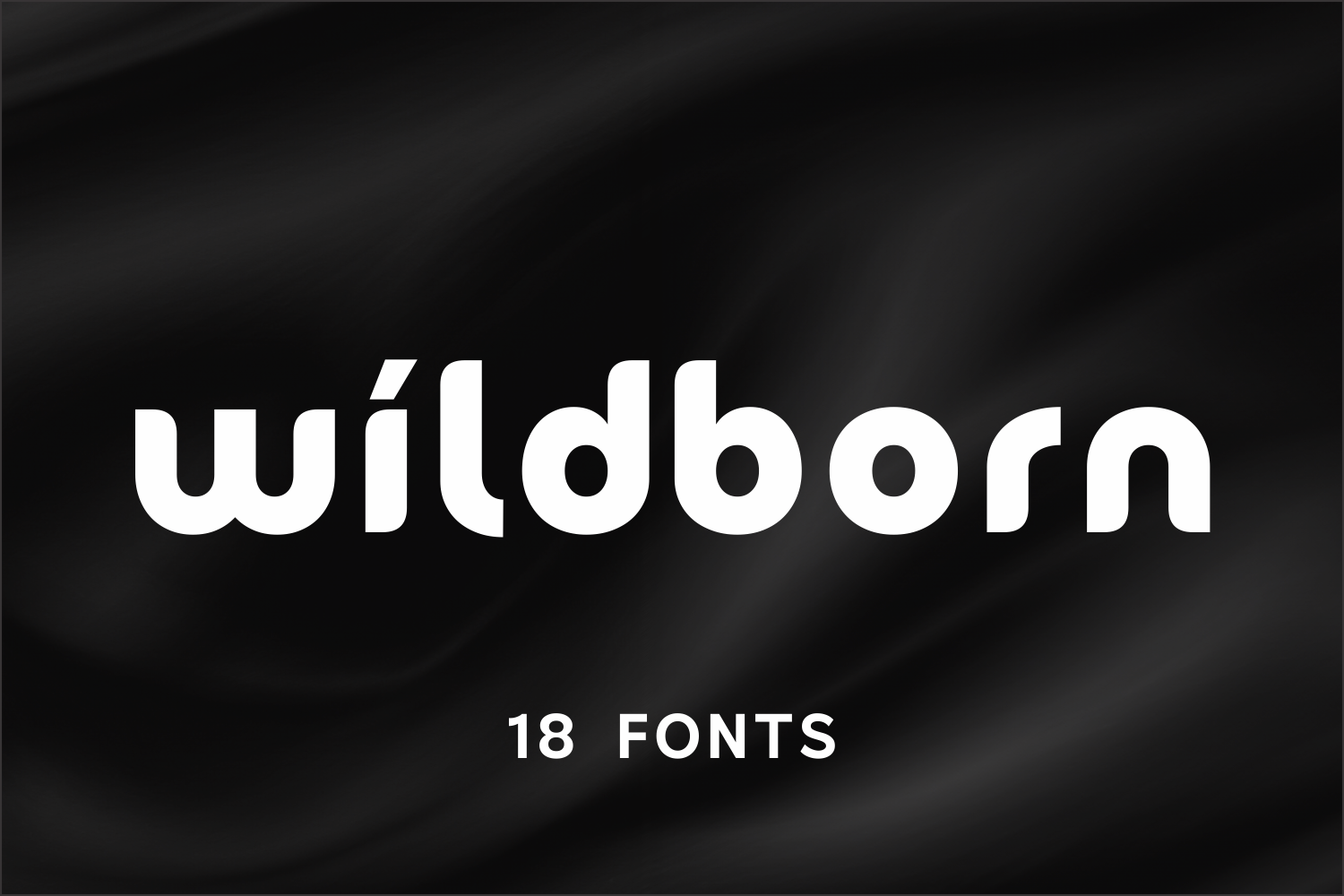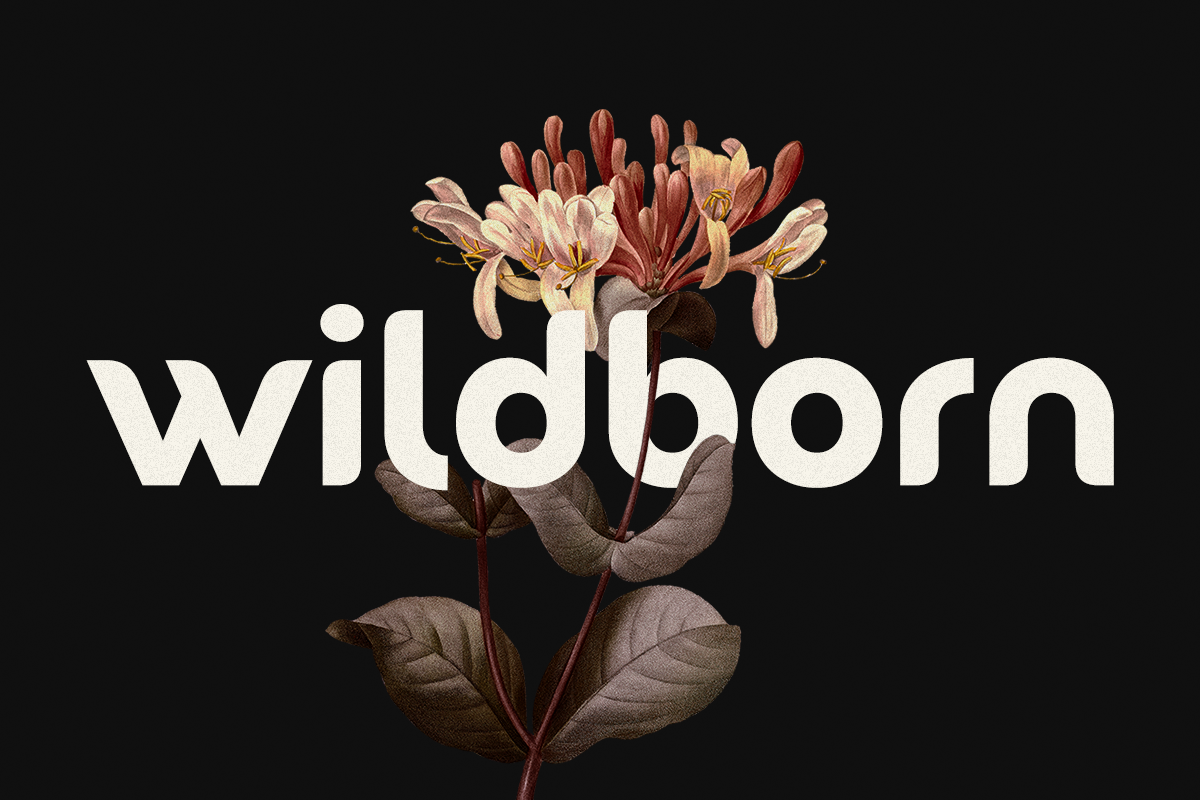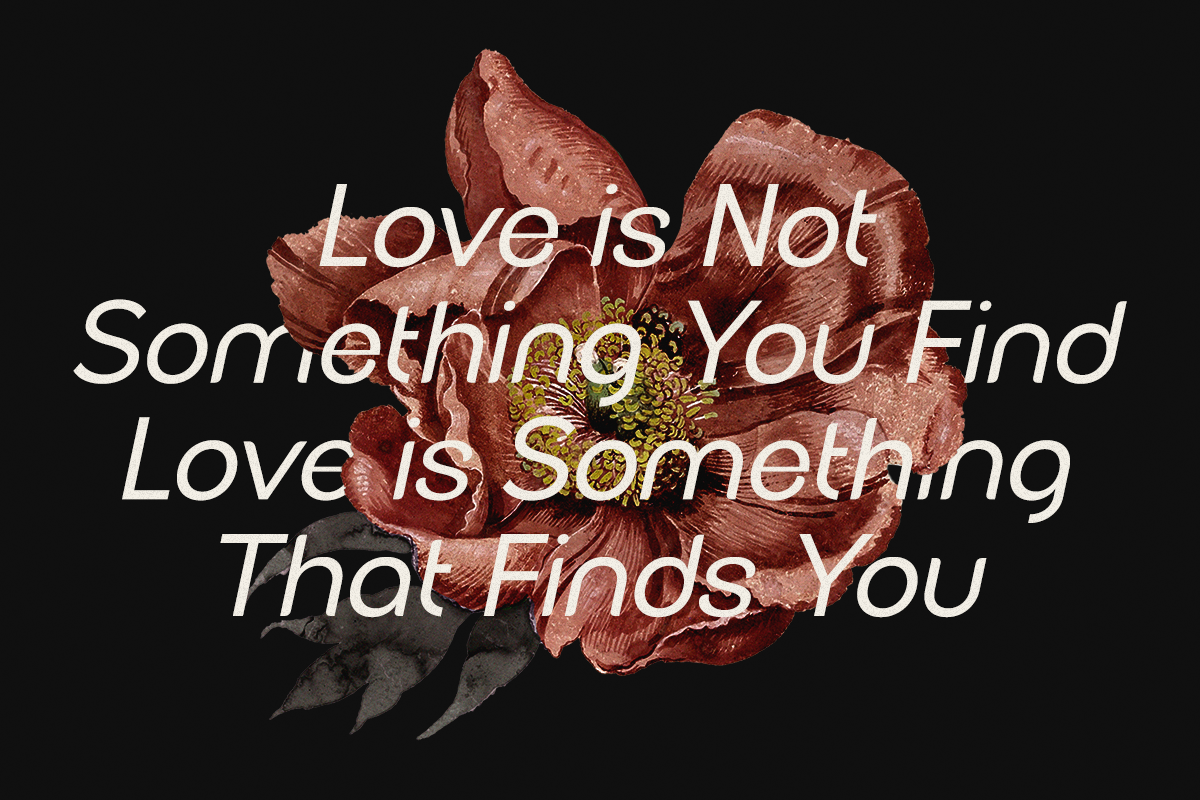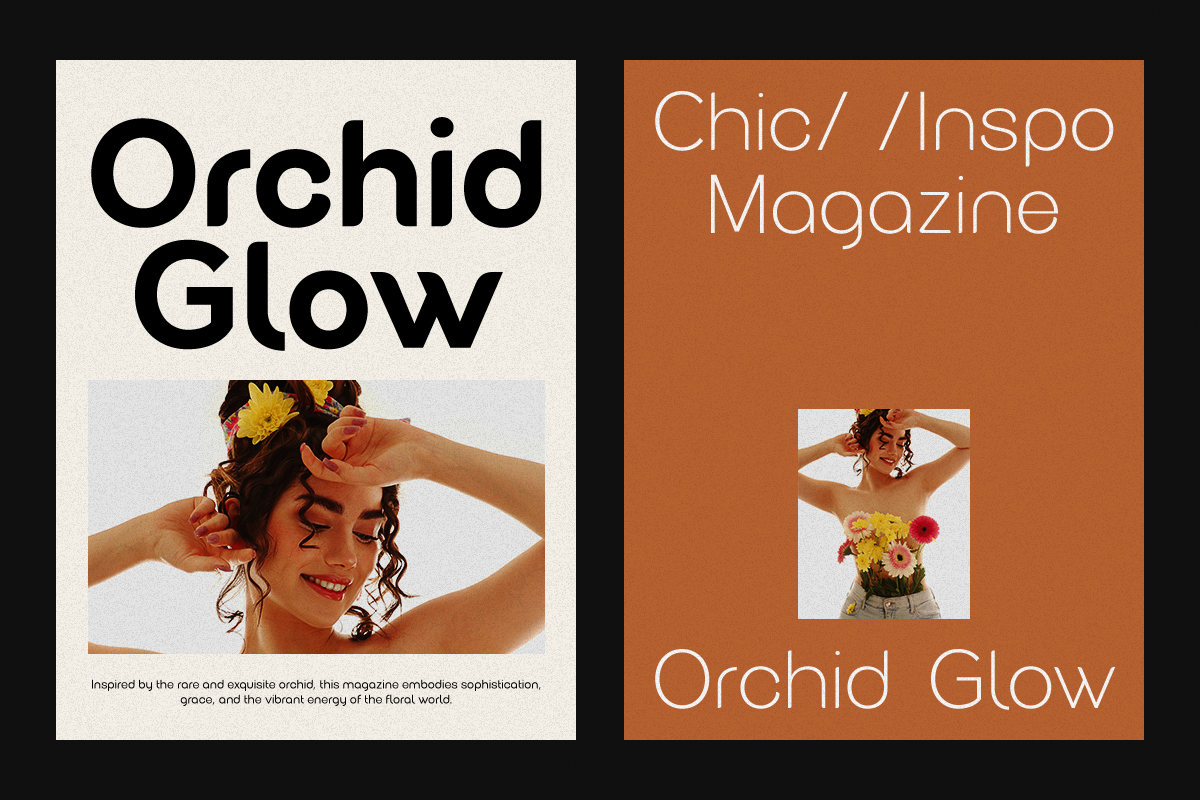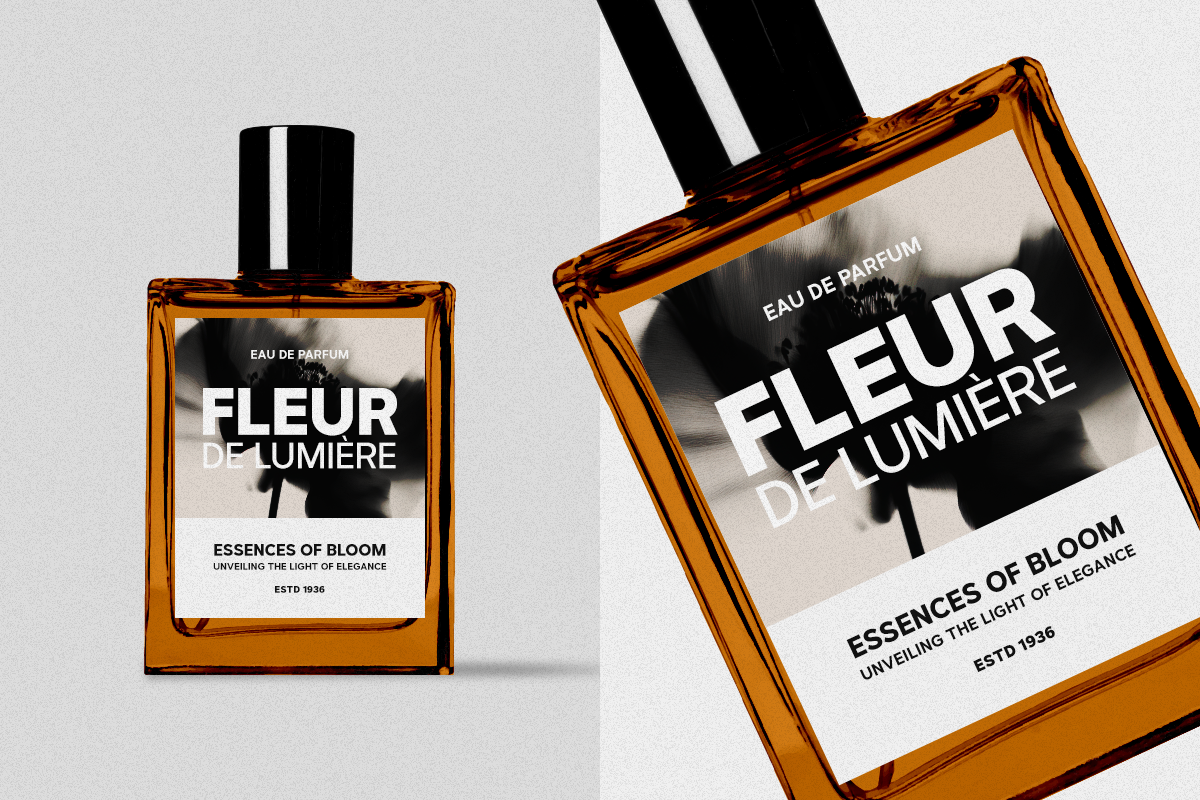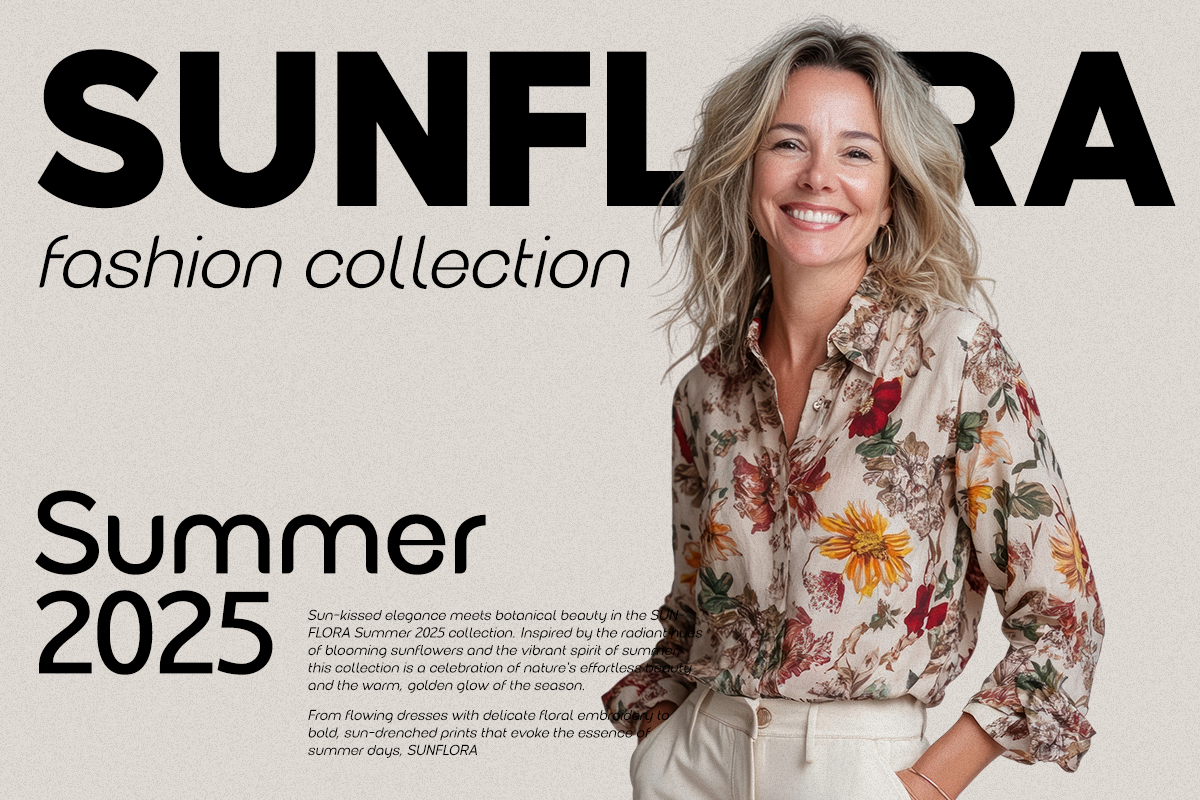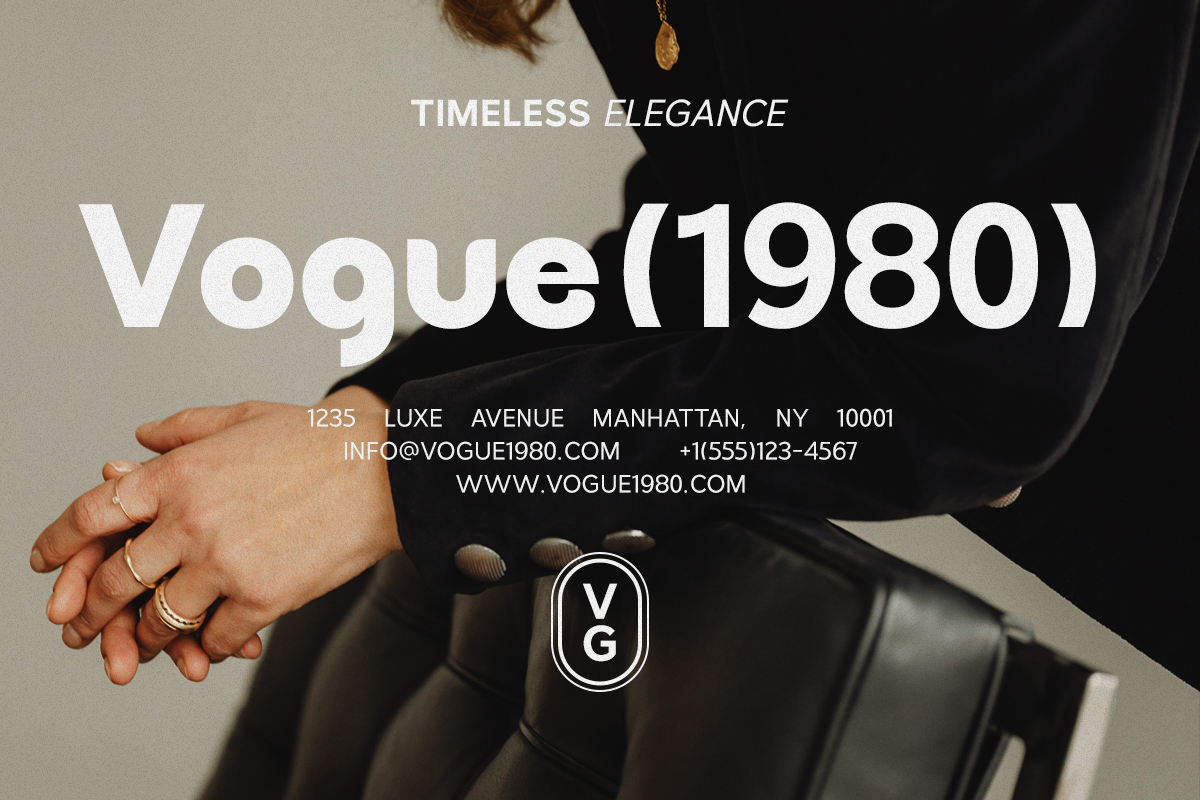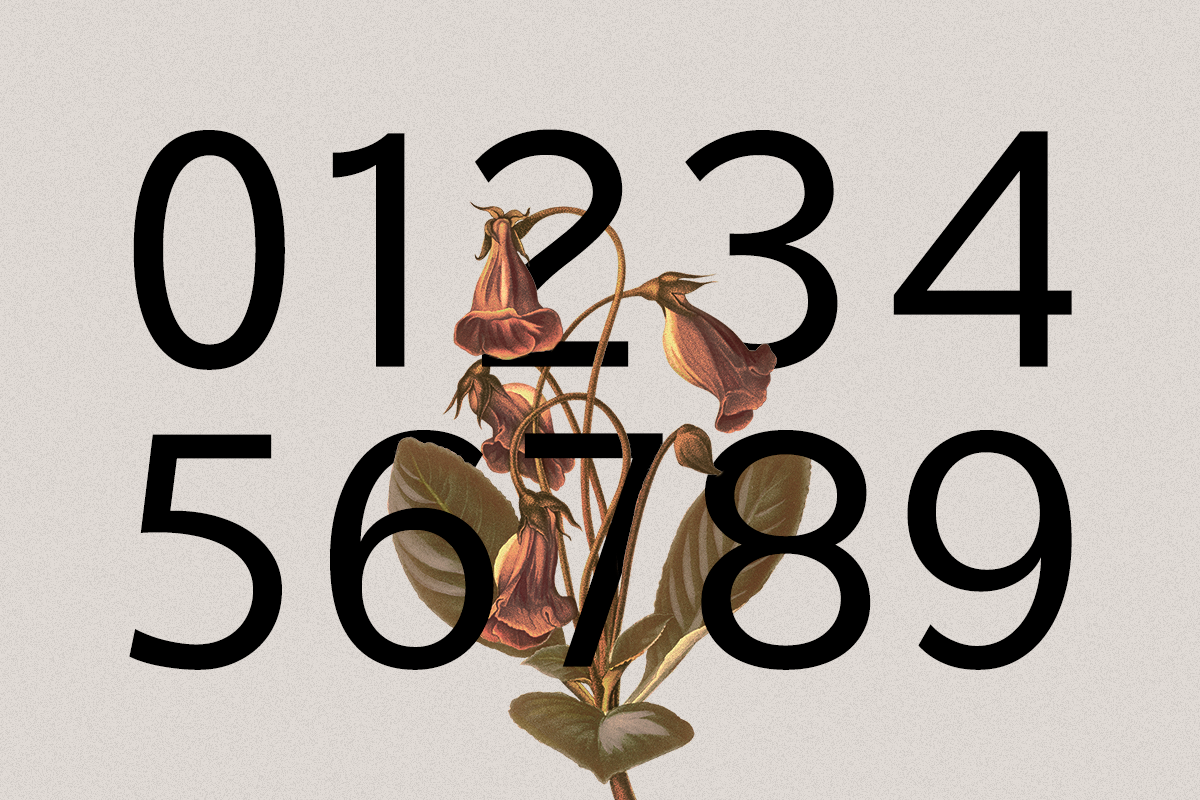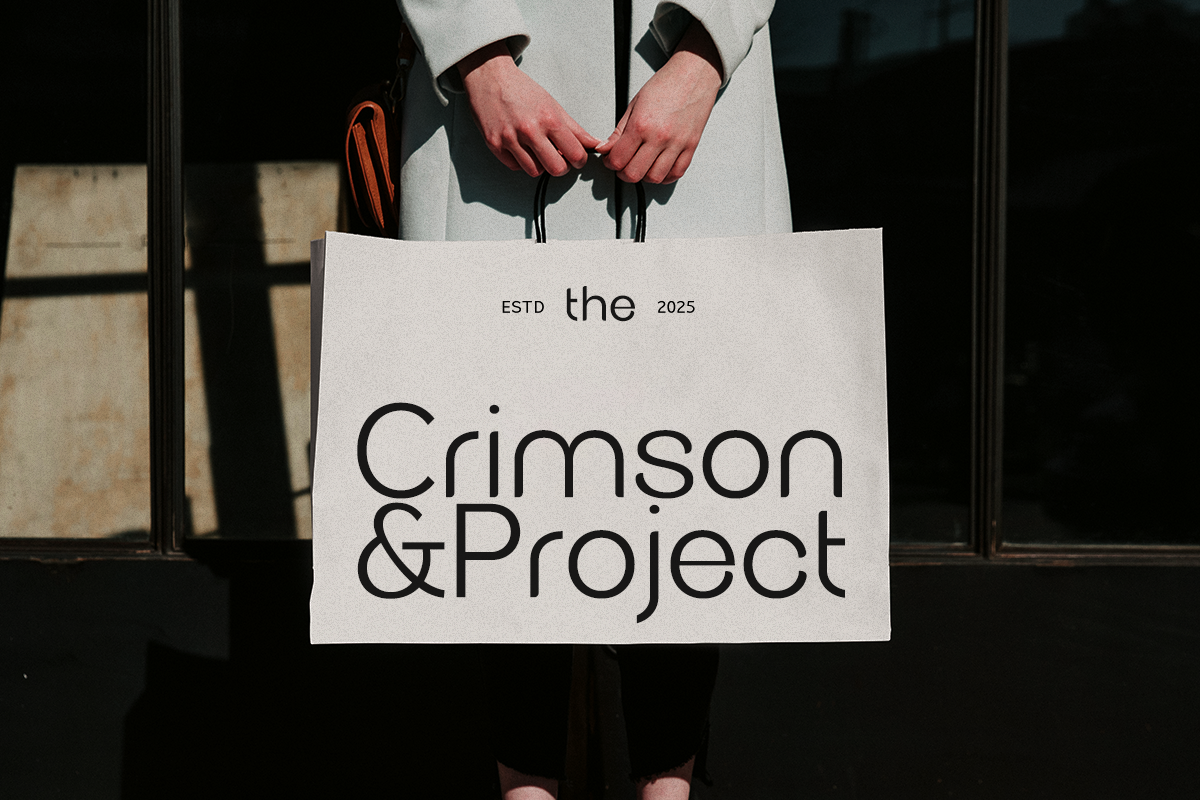
Wildborn - Logo Font
Wildborn is a logo font and modern sans-serif typeface built for those who value clean design and bold impact. It’s all about clarity and confidence—perfect for professionals who want their brand to speak with authority and style. With a full range of weights from Thin to Bold, Wildborn gives you the flexibility to create standout visuals across a variety of media.
Whether you're designing a brand identity, crafting a standout logo, or building a stylish website, Wildborn has you covered. Its sharp lines and balanced proportions make it ideal for everything from headlines and posters to signage and packaging. It’s a typeface that feels right at home in creative studios, corporate environments, or cutting-edge digital products.
What sets Wildborn apart is its attention to detail. The kerning and spacing have been carefully refined, especially for logo work and titling, so every letter feels perfectly placed. This isn't a font for paragraphs of body text—it's made to shine in big moments where every letter counts and visual impact is key.
From fashion lookbooks and advertisements to business cards and magazine covers, Wildborn adapts effortlessly to your creative needs. It’s the kind of typeface that brings a sense of modern sophistication to whatever you're working on, while remaining incredibly versatile across industries and platforms.